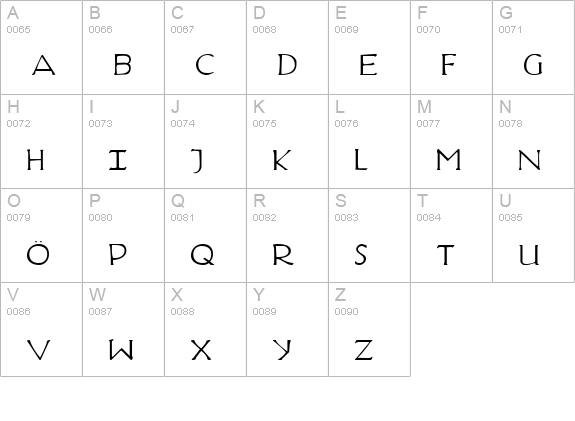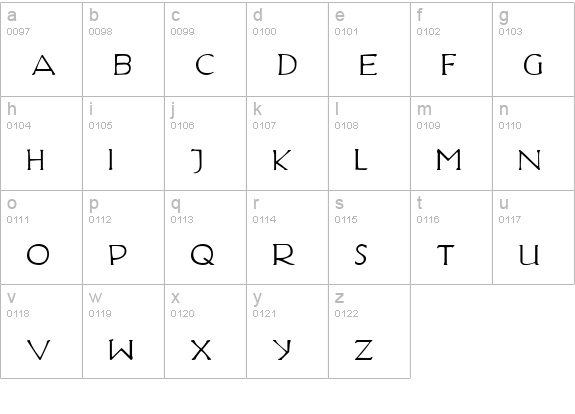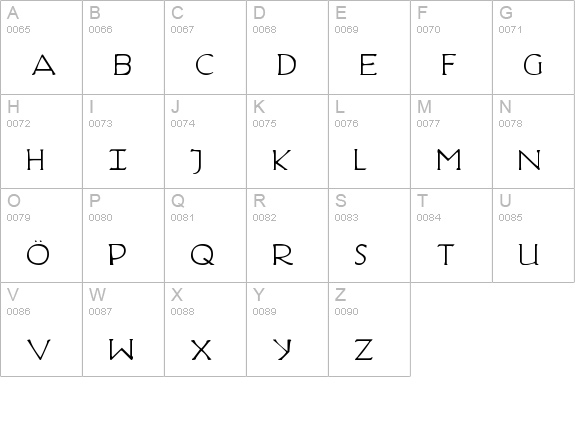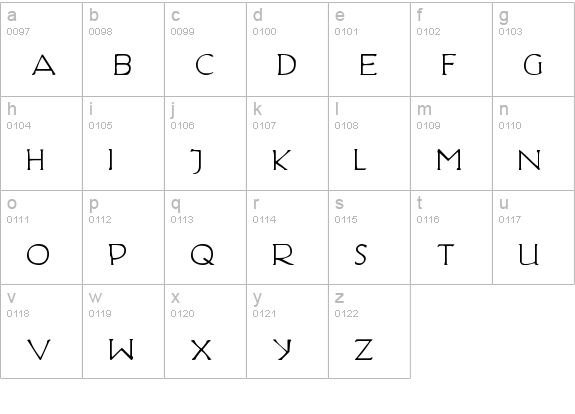
Hadriatic Extended is a distinctive, extended-width variant in the Hadriatic typeface family \xE2\x80\x94 well suited to design and typography projects.
Hadriatic Extended is a modern and elegant typeface that exudes sophistication and style. Its sleek lines and unique letterforms make it perfect for a wide range of design projects, from branding to editorial design. The extended character set of Hadriatic Extended allows for versatile and creative typography, making it a versatile choice for both print and digital applications. What sets Hadriatic Extended apart is not only its aesthetics but also its accessibility. This beautiful font is available for free download at FontsMarket.com, making it easily accessible to designers and typographers looking to elevate their work with a touch of class and refinement. Don't miss out on the opportunity to enhance your designs with the timeless beauty of Hadriatic Extended – download it today and unlock a world of creative possibilities.